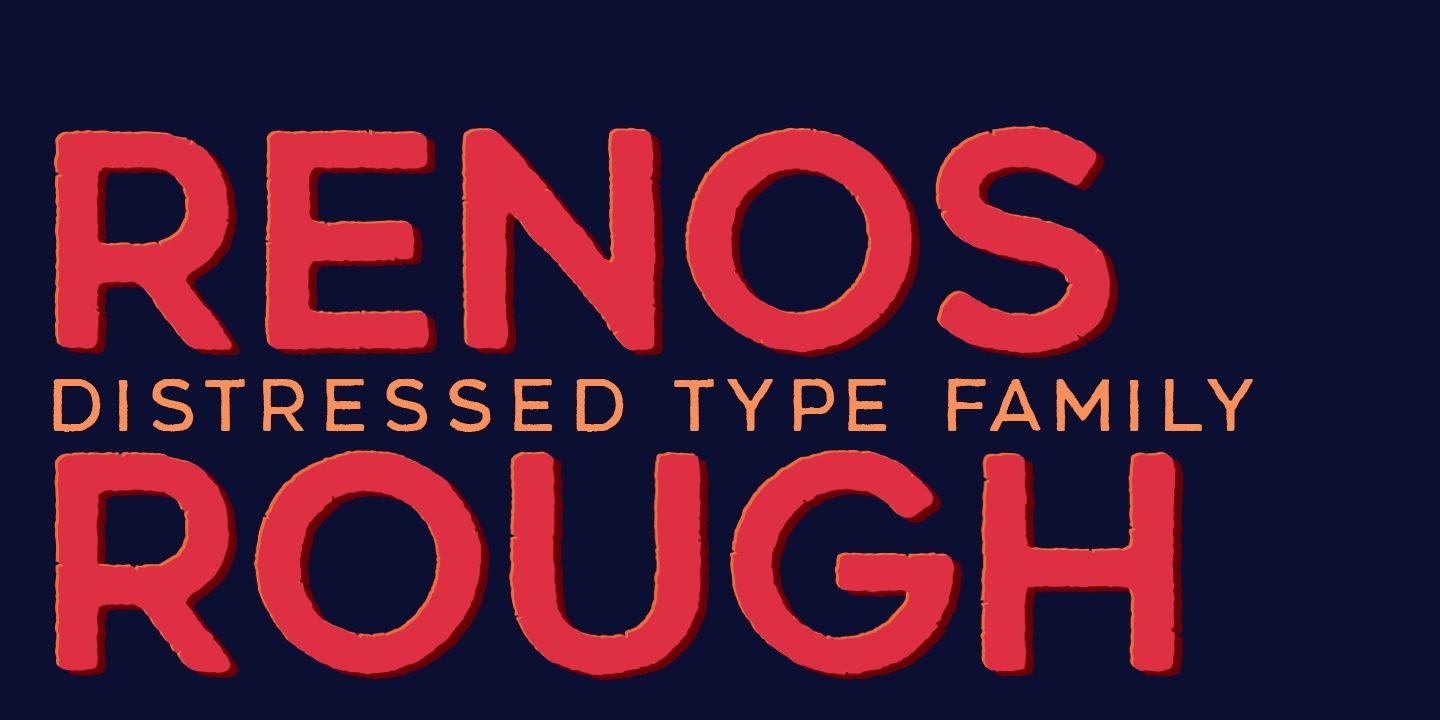
Renos Rough Font
Renos Rough Font is perfect for renovation company branding, construction business marketing, handyman service communications, restoration project materials, industrial workshop signage, rugged outdoor gear packaging, weathered vintage designs, and authentic craftsmanship campaigns.
What makes Renos Rough Font exciting is its authentically weathered character that captures the honest grit and hands-on expertise of renovation work through textured, distressed letterforms that seem worn smooth by years of dedicated craftsmanship. The font features rugged shapes with authentic wear patterns that evoke the satisfying transformation and skilled labor that turns neglected spaces into beautiful, functional environments. Its rough-hewn aesthetic and craftsman authenticity make it perfect for brands that want to communicate skilled workmanship, honest labor, and the rewarding process of restoration while creating memorable experiences that celebrate the transformative power of dedicated renovation work.
Renos Rough Font family includes various weathered weights such as Regular, Bold, and Distressed variations, often featuring construction-inspired alternates and renovation decorative elements. The family may include tool symbols, construction ornaments, and worn ligatures that enhance the font's rough aesthetic, providing designers with comprehensive options for creating authentic typographic compositions that honor the craft of renovation and restoration work.
This authentically weathered typeface has gained recognition among construction companies and renovation-focused businesses seeking genuine craftsmanship typography solutions that reflect honest work values and skilled trade traditions. Renos Rough Font Free Download provides an excellent opportunity to renovate with this weathered font before investment. The font's character set includes construction symbols and renovation-inspired glyphs that work perfectly for building and restoration industry applications. Whether you're designing for renovation contractors, construction firms, or restoration specialists, Renos Rough Font delivers the authentic craftsmanship your project requires. Its versatile nature makes it suitable for various construction applications including handyman services, restoration companies, building supply stores, and skilled trade lifestyle brands, ensuring your typography choices communicate honest workmanship and skilled craftsmanship while creating memorable brand experiences that celebrate the satisfying art of renovation and the essential value of skilled trades through its distinctively weathered and authentically crafted visual character.